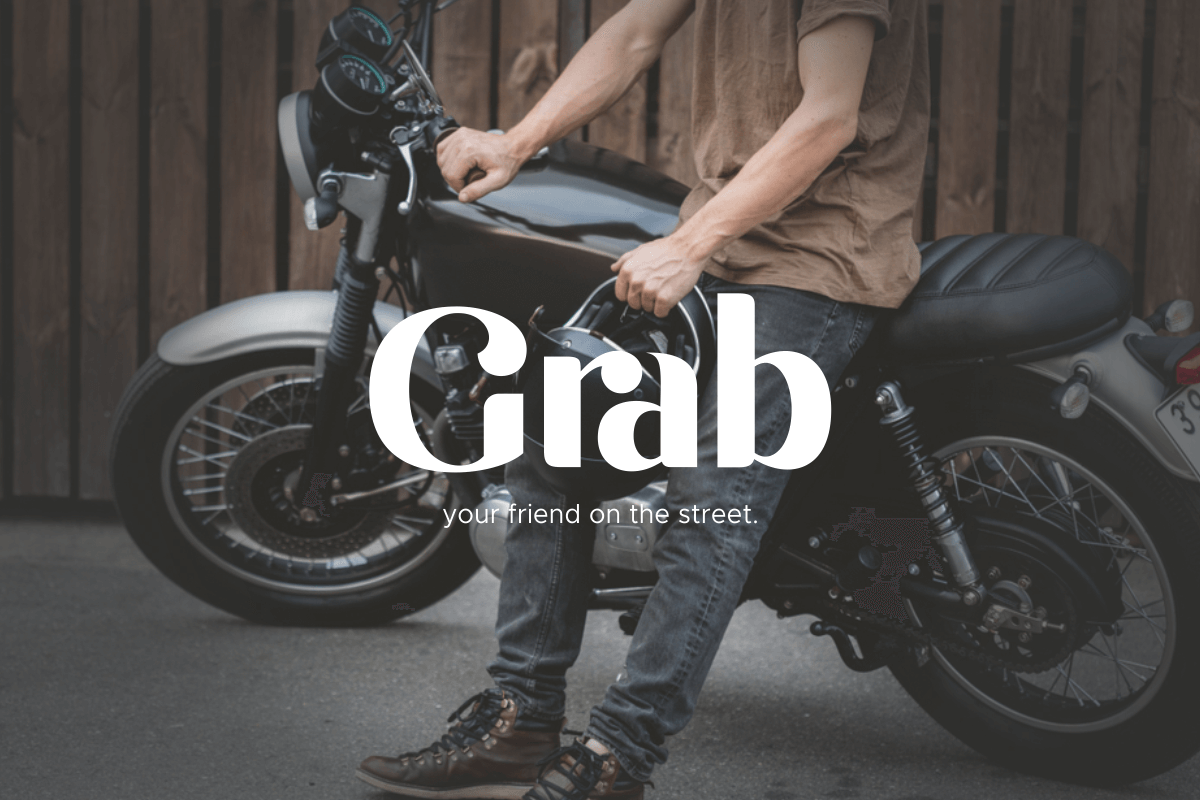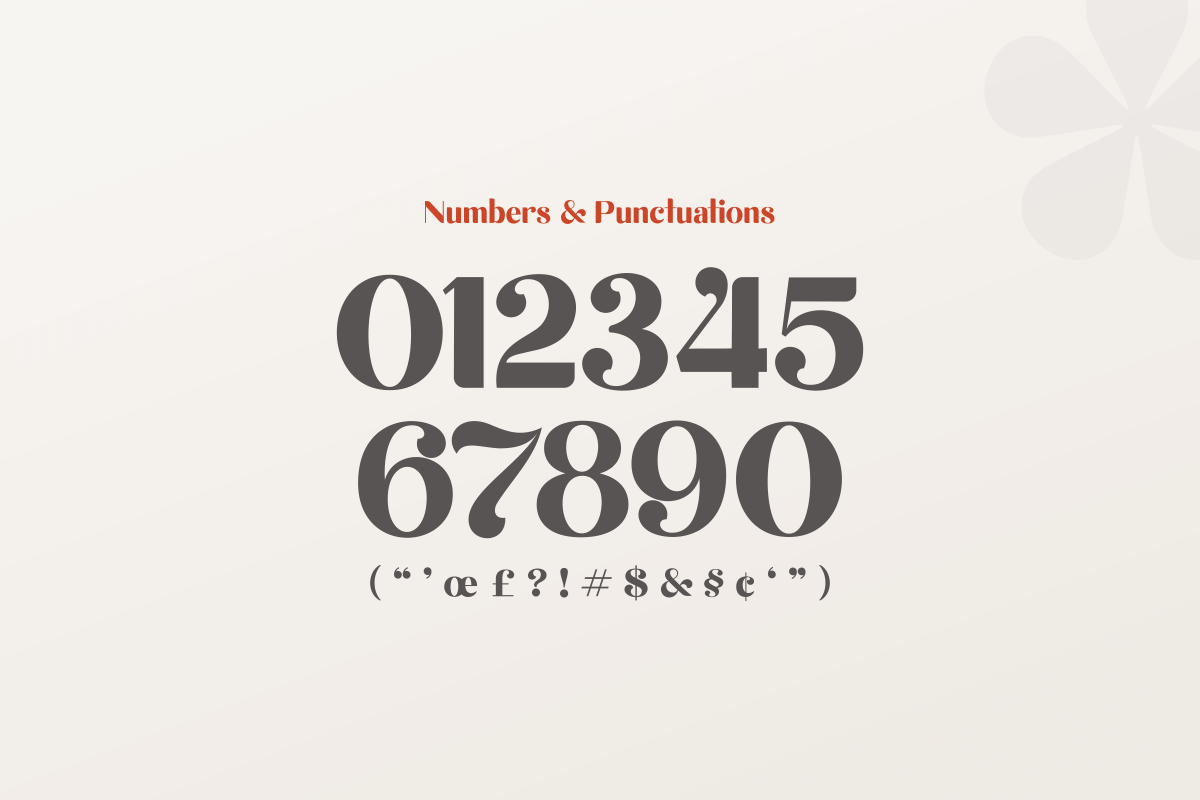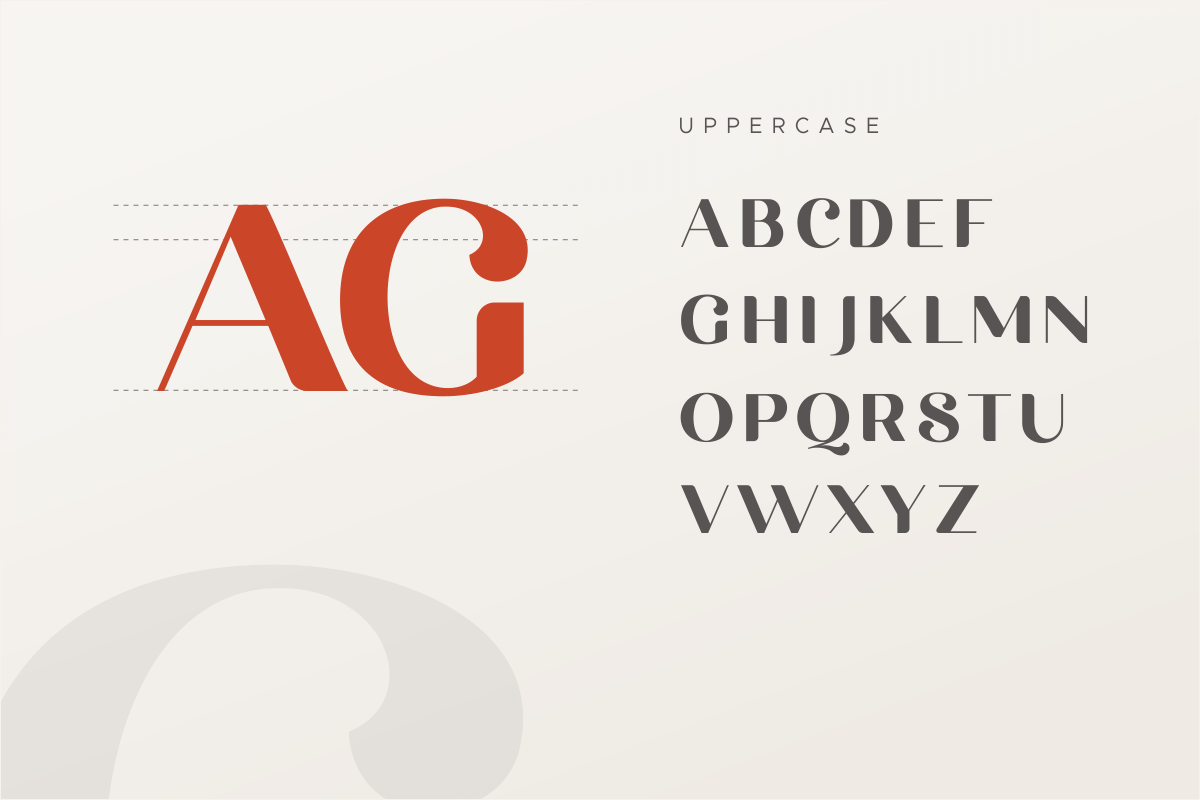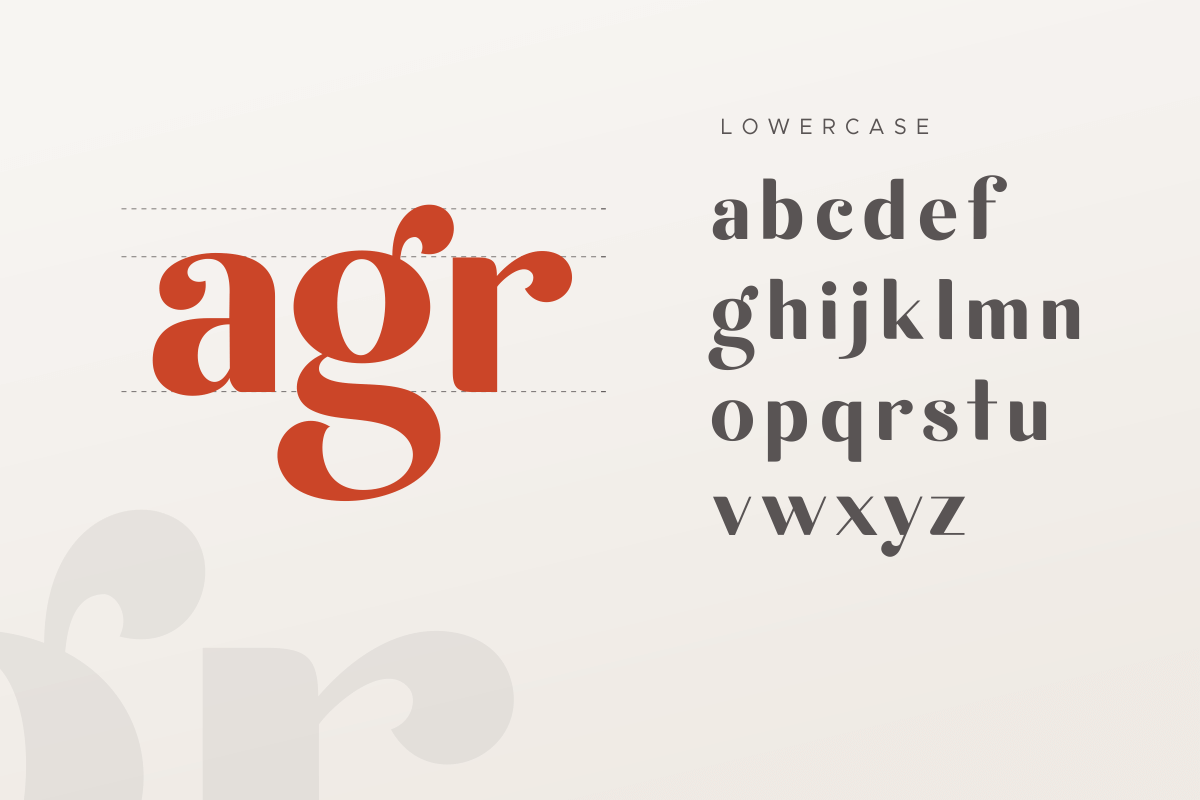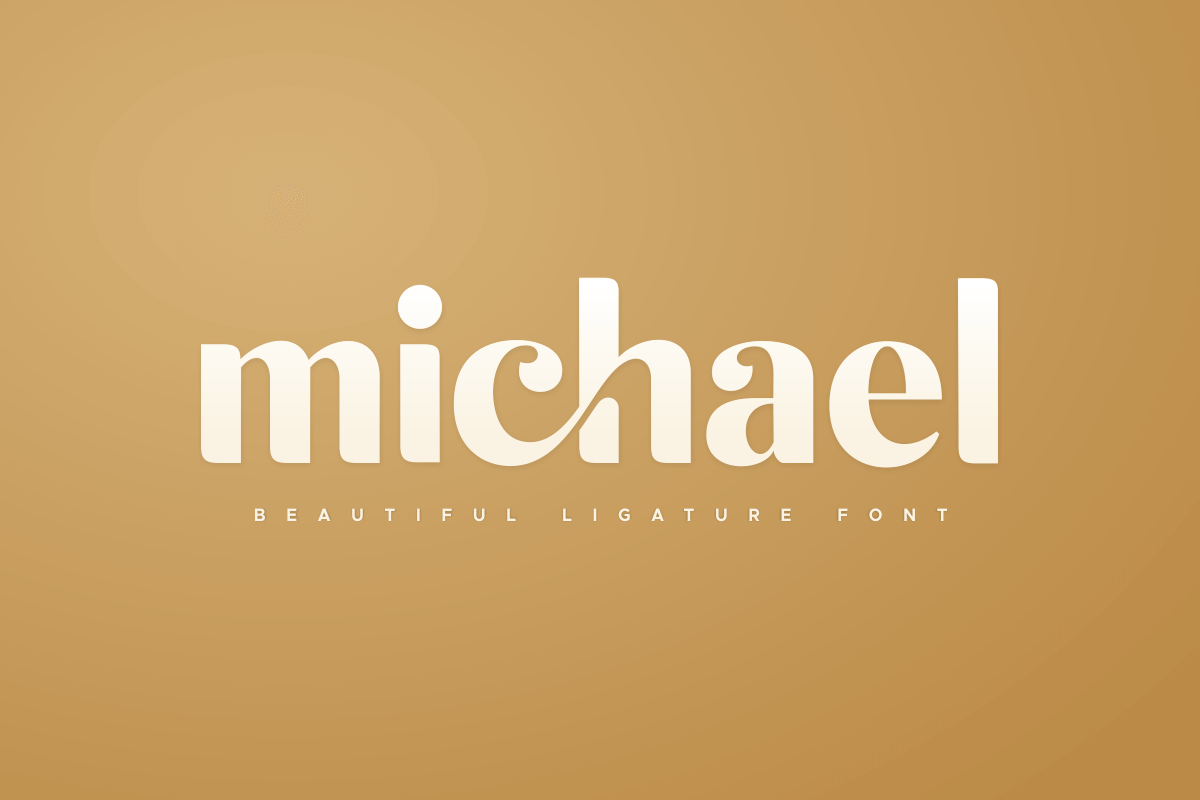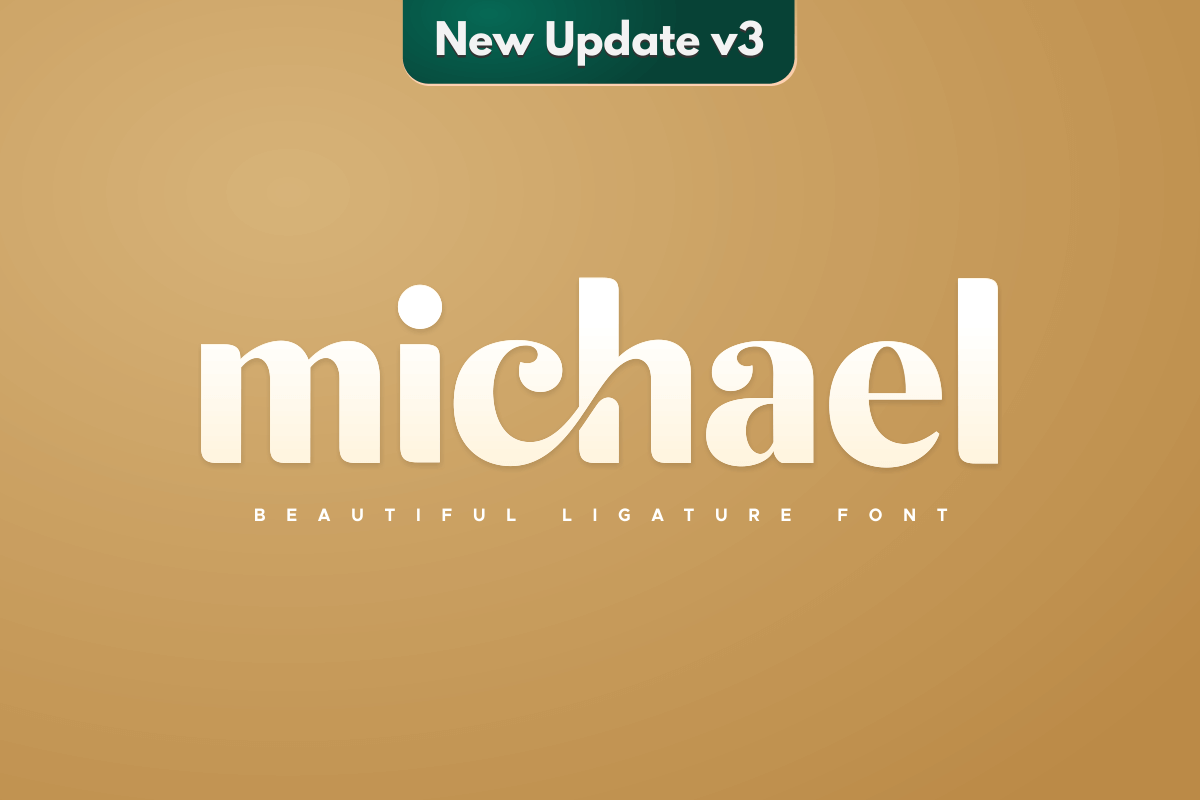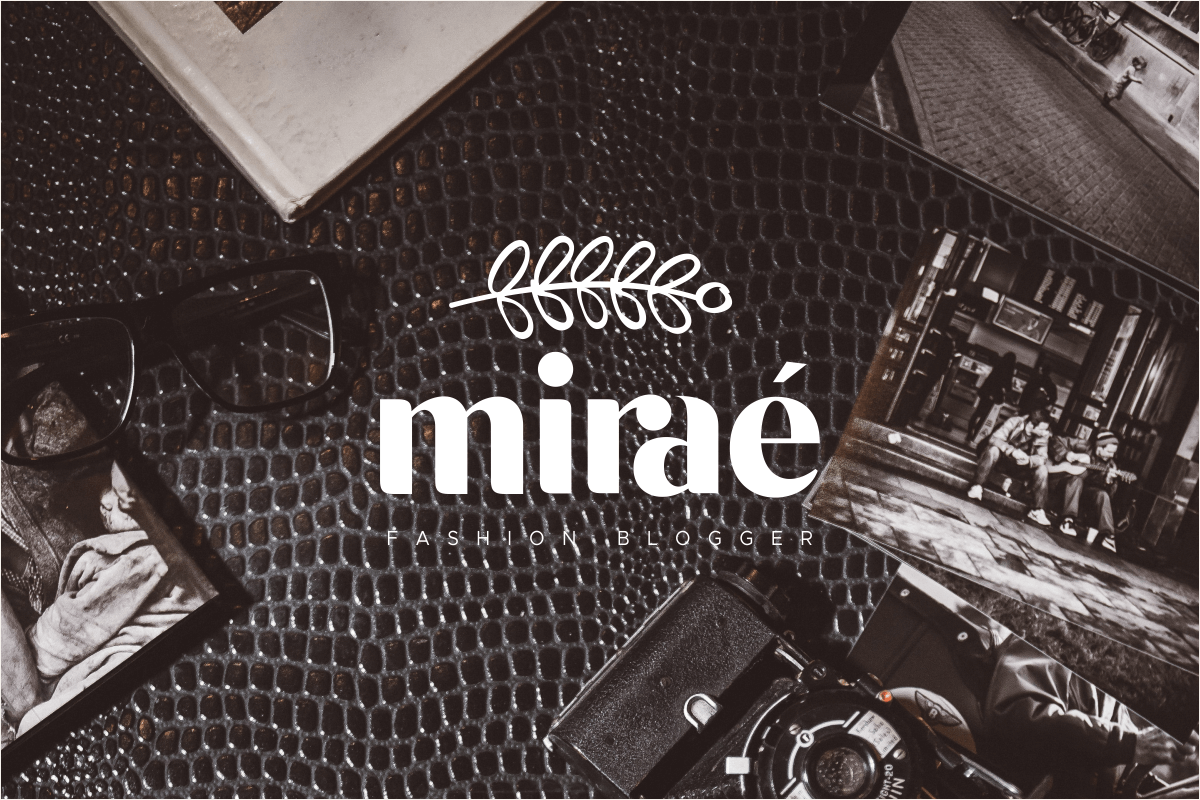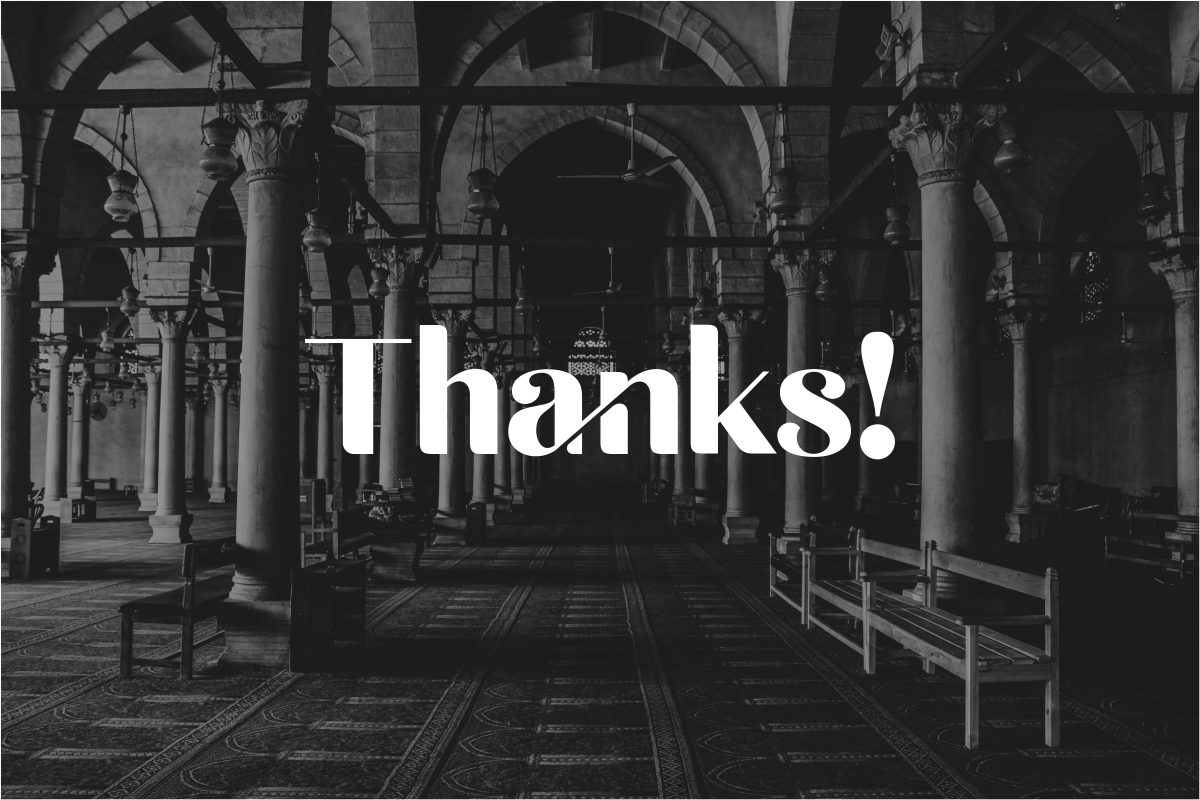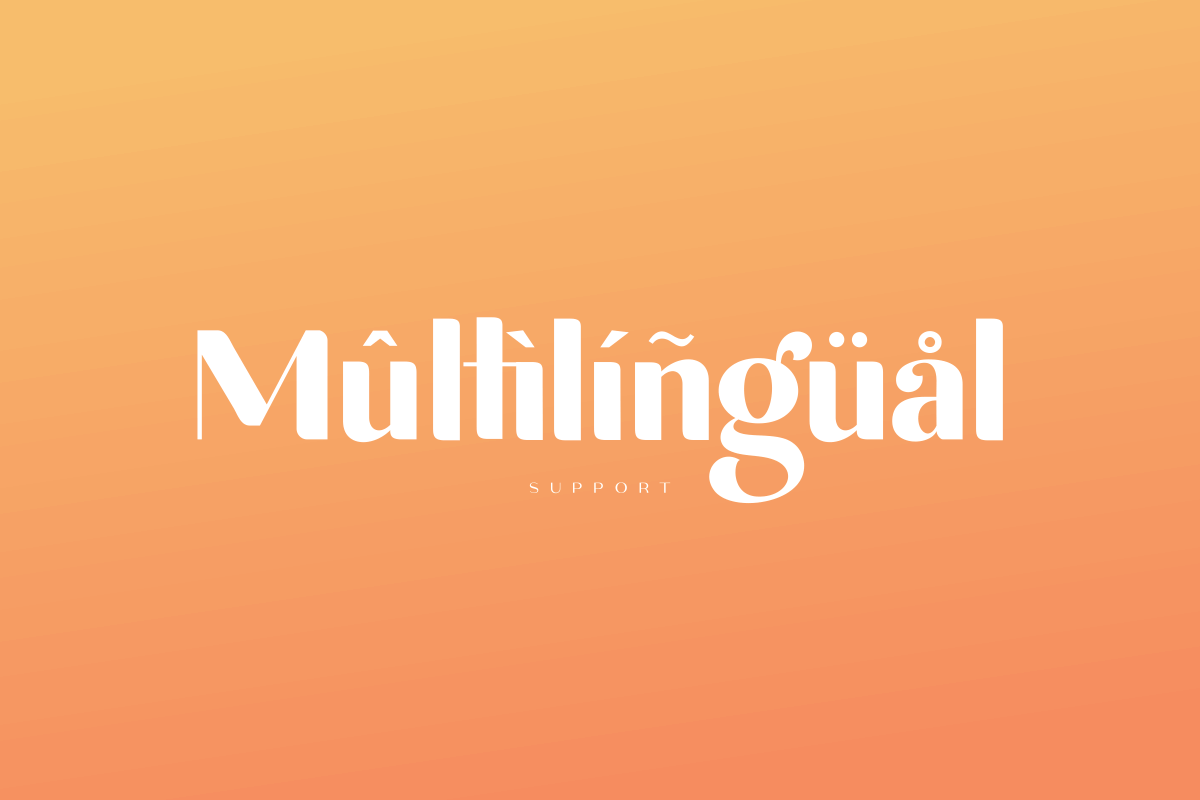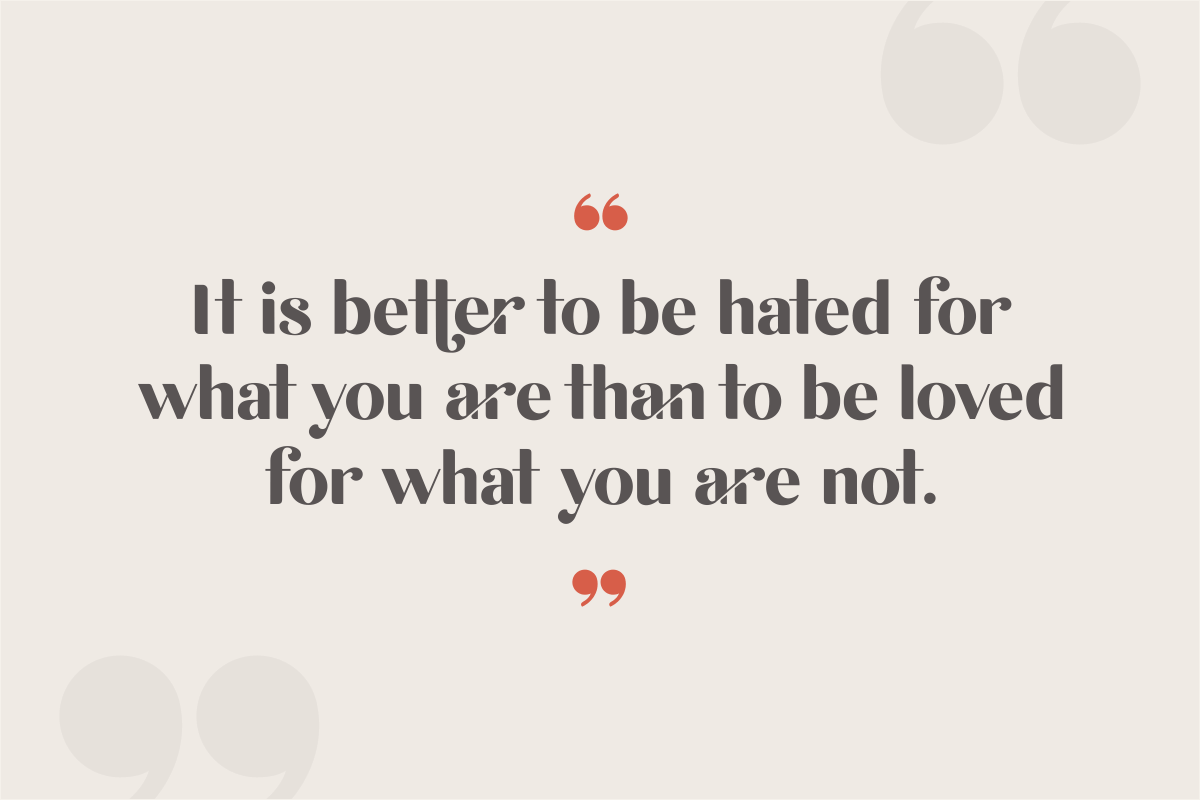
michael - beauty ligature font
michael font is a well-balanced contemporary font with beautiful ligatures. It is a display font with moderate contrast that perfect for branding projects, logo, wedding designs, social media posts, advertisements, product packaging, product designs, label, photography, watermark, invitation, stationery, and any projects, it makes with a high level of legibility.
Ligature & Stylistic alternate
It's a gorgeous and unique font that always makes an impression as a display font. The ligatures are elegant and combine letters in ways that add character to most titles. It can easily be paired with sans or serif body fonts to show a hierarchy. Very easy to download and use. It's possible to use the forms and curves to create custom ligatures and graphics to complement the font.
I fit what I was looking for with the title of my newest book. I didn't want a sans serif, nor a serif. This was more or less between the two, plus the ligatures. For future use, I would hope for ligatures with cap and lower case, maybe some cap swash options. But I'm pleased.
This font is beautiful but I think that you could create more ligatures like "ia" "us" or more combinations.